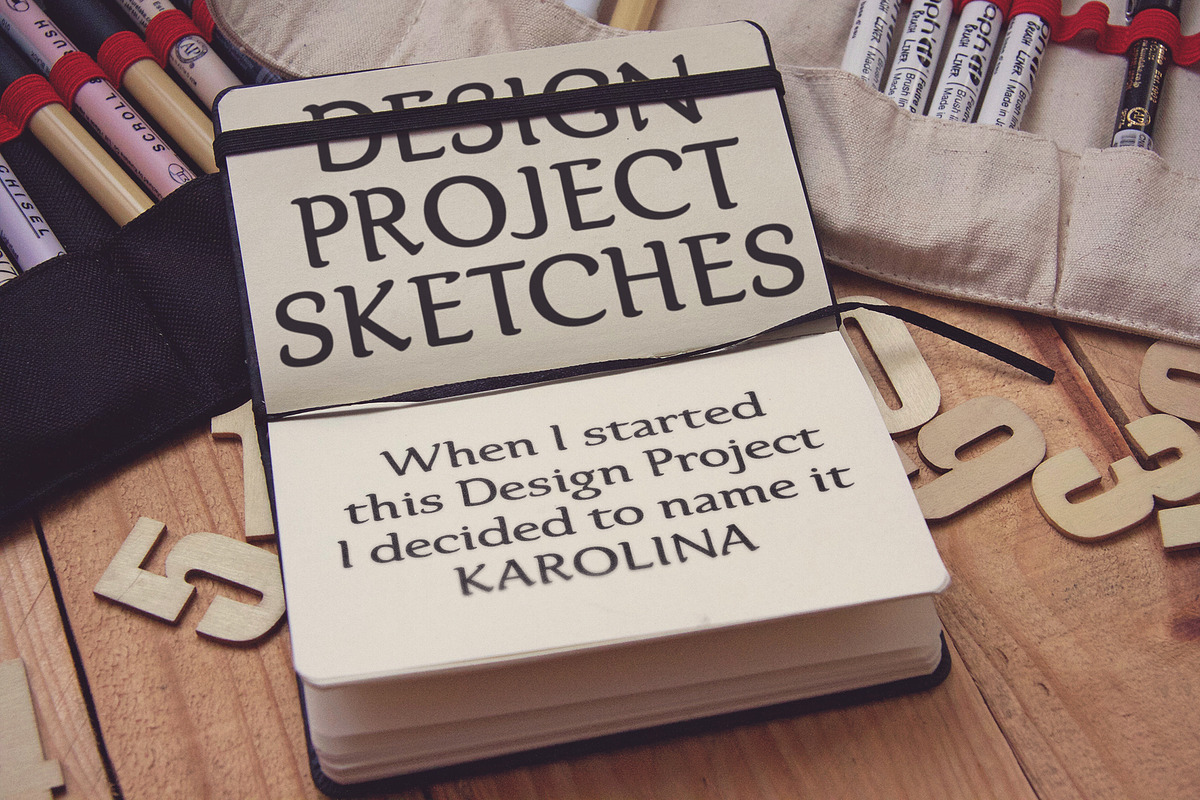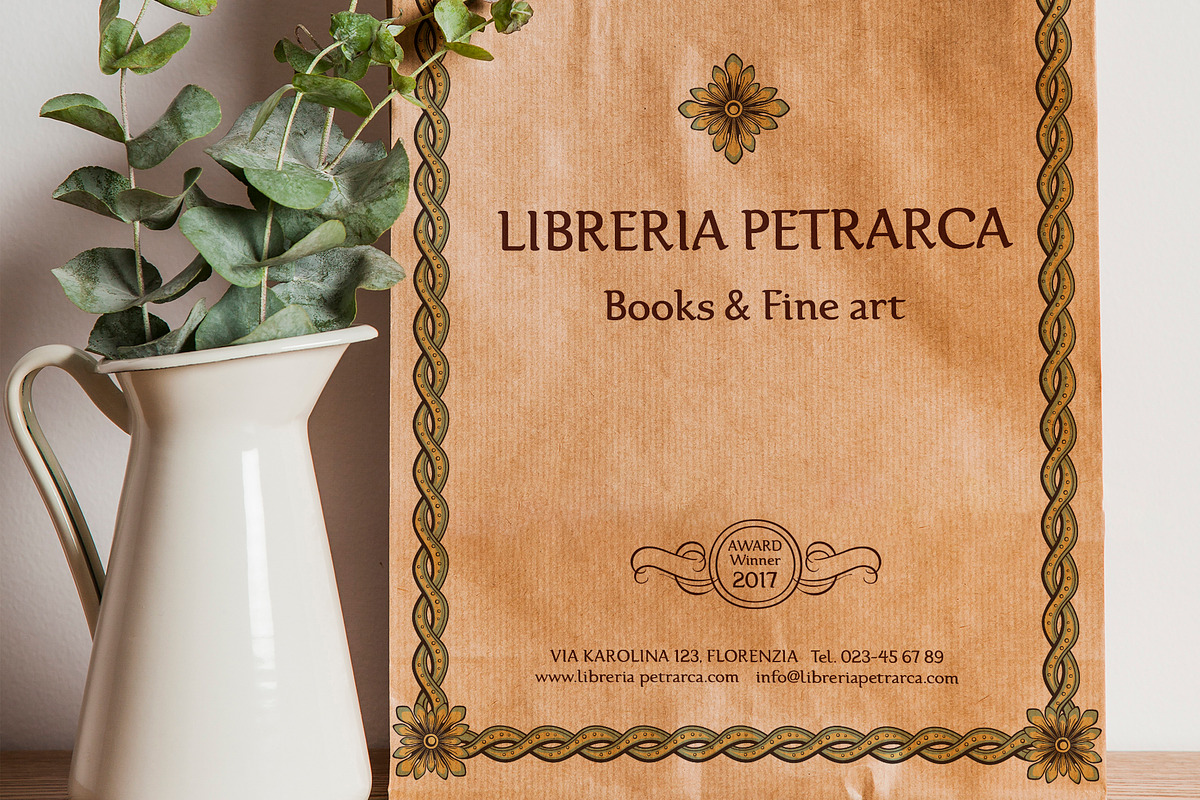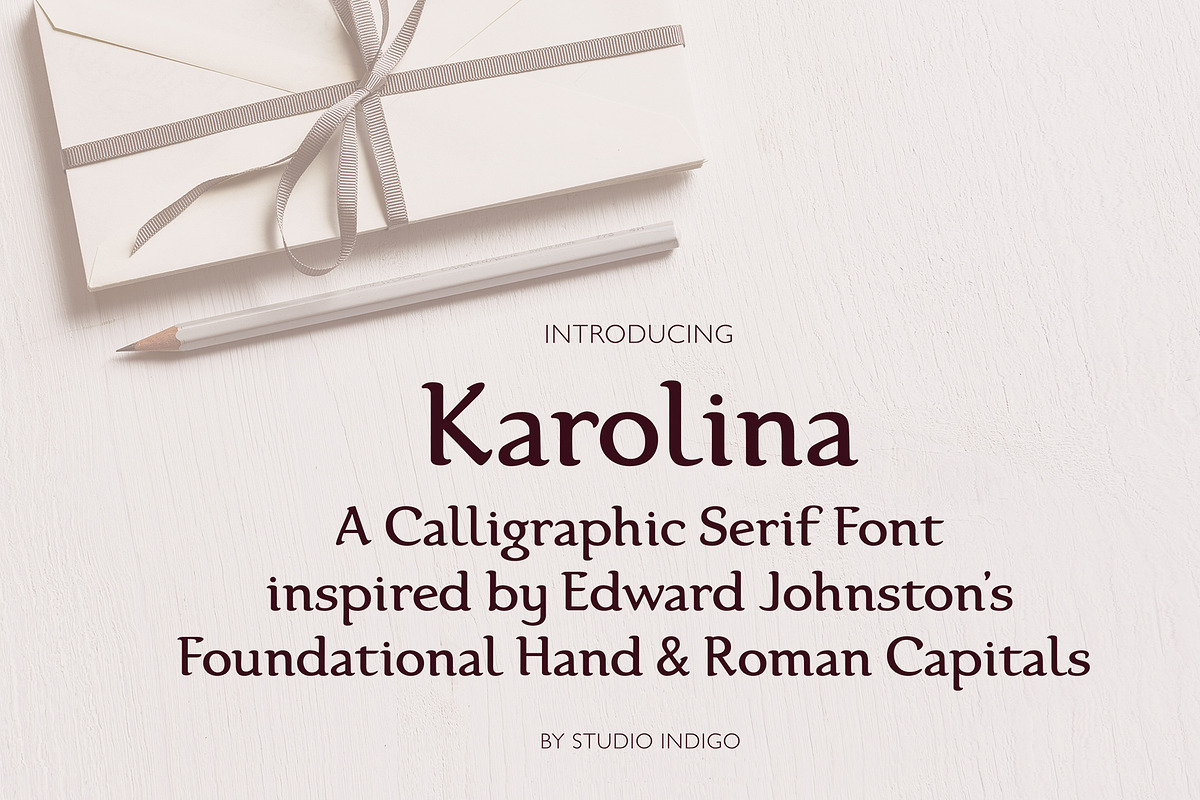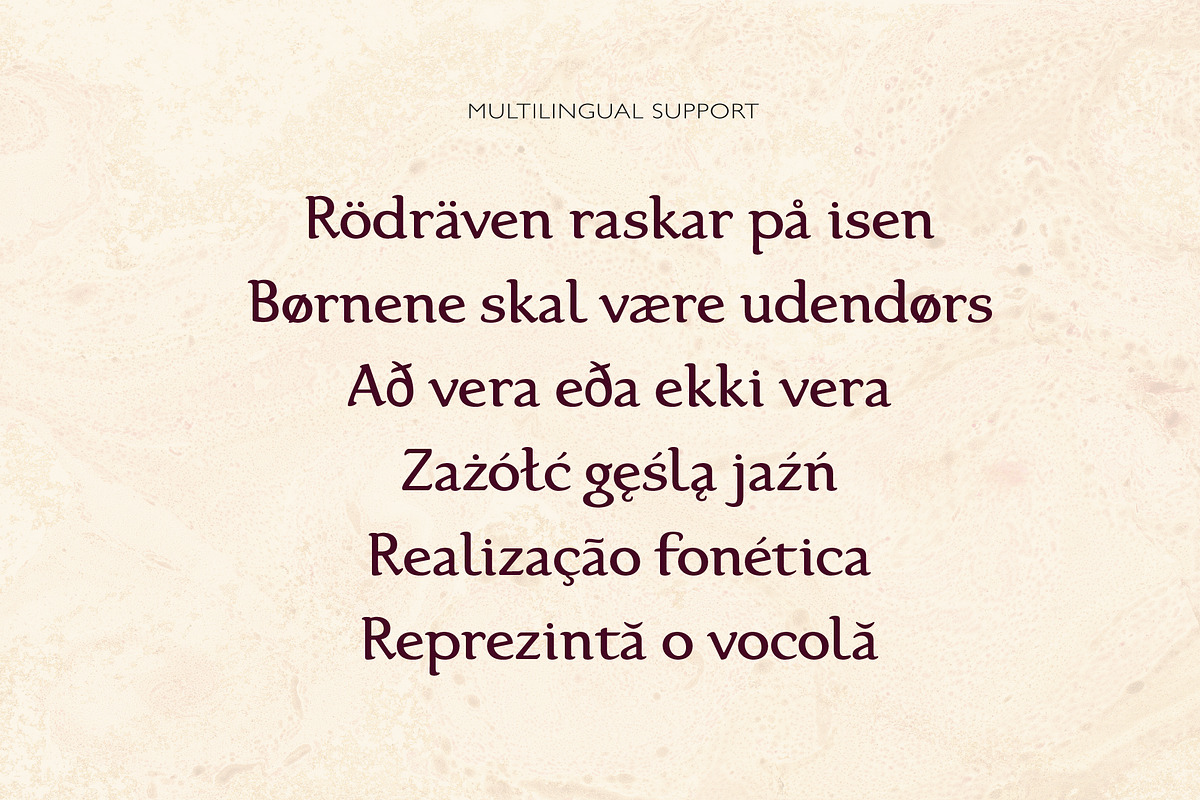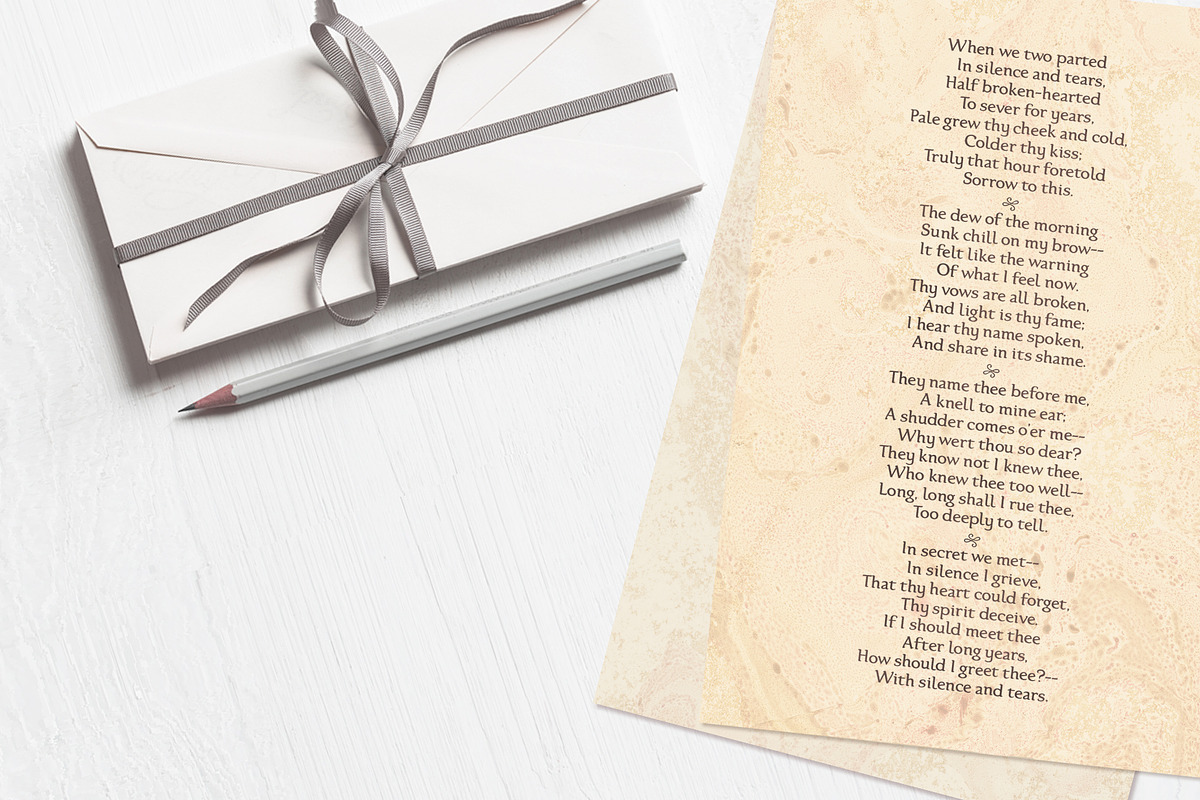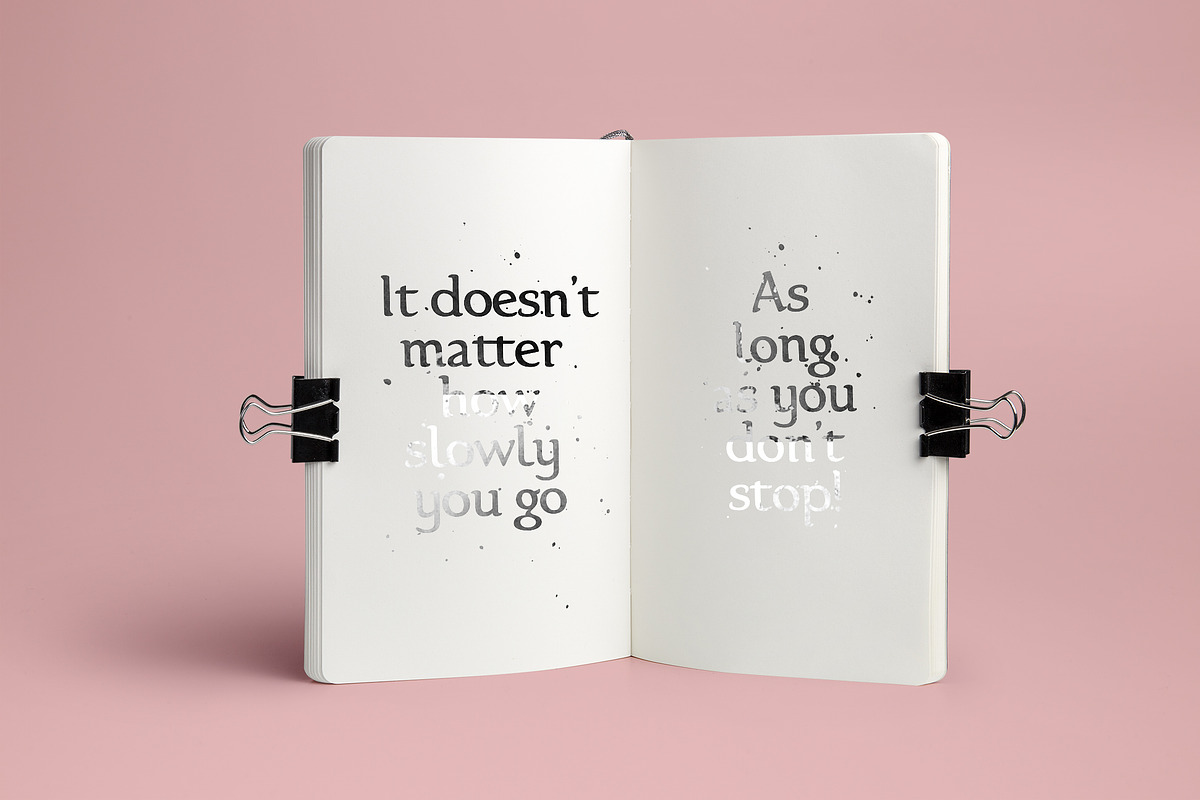
Karolina Serif font
Karolina is a calligraphic serif font. It is inspired by Edward Johnstons (1872–1944) calligraphy and the foundational hand (which was based on the carolingian letters – and therefore the name Karolina). The Uppercase letters are based on the perfect proportioned roman capitals. Karolina is a classic and clean typeface with smooth shapes that will give an elegant touch to your projects. It is suitable for formal use and works well both for headlines and as body text in smaller sizes.
Uppercase serif capitals
Lowercase serifletters
Numerals, Oldstyle Figures and Punctuation
Several Standard Ligatures
Multilingual support is included for all European languages (Diacriticals). Please Note! Test the font in the Font Preview before purchase